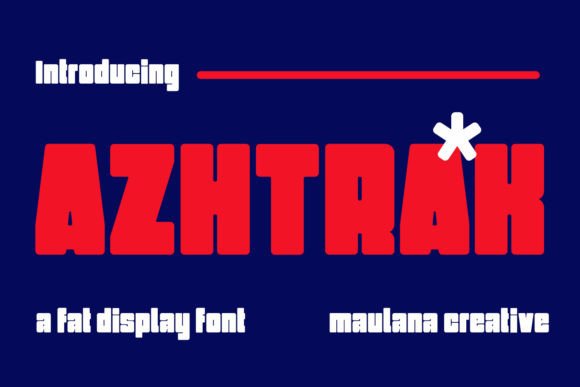
Introducing Azhtrak Font: The Ultimate Modern Display Font
In the world of typography, fonts play a crucial role in conveying messages, expressing emotions, and creating visual identities. With the rise of digital media, the demand for unique and versatile fonts has increased exponentially. This is where Azhtrak Font comes into play – a modern, fat, condensed sans display font that is taking the design world by storm.
What Makes Azhtrak Font Stand Out?
Azhtrak Font is a carefully crafted typeface that boasts a range of distinctive features, making it an excellent choice for designers, artists, and writers. Some of its key characteristics include:
- Heavy Stroke: Azhtrak Font features a bold, heavy stroke that gives it a strong and confident appearance, perfect for making a statement.
- Fun Character: The font’s playful and fun character makes it ideal for creative projects that require a touch of personality.
- Ligatures and Alternates: Azhtrak Font comes with a range of ligatures and alternates, allowing designers to add an extra layer of creativity to their work.
Multilingual Support: Breaking Language Barriers
In today’s globalized world, communication knows no language barriers. Azhtrak Font understands this and offers multilingual support for over 100 languages, making it an excellent choice for designers working on international projects.
Whether you’re creating content for a global audience or working on a project that requires support for multiple languages, Azhtrak Font has got you covered. Its extensive language support ensures that your message reaches a broader audience, without compromising on style or legibility.
Endless Possibilities: Use Cases for Azhtrak Font
Azhtrak Font’s versatility makes it suitable for a wide range of applications, including:
- Logo Design: Create stunning logos that make a lasting impression with Azhtrak Font’s bold and confident appearance.
- Social Media: Elevate your social media presence with eye-catching graphics and typography that showcase your brand’s personality.
- Movie Titles: Add a touch of glamour to your movie titles with Azhtrak Font’s cinematic feel.
- Book Titles: Create captivating book titles that grab readers’ attention and reflect the tone of your story.
- Short and Long Text: Use Azhtrak Font for both short and long texts, including letters, articles, and more.
- Secondary Text Font: Pair Azhtrak Font with script or serif fonts to create a harmonious and visually appealing typography combination.
Unlock Your Creativity with Azhtrak Font
Azhtrak Font is more than just a typeface – it’s a creative tool that can help you unlock your full artistic potential. With its unique features, multilingual support, and versatility, this font is perfect for:
- Graphic Design: Create stunning graphics, posters, and flyers that showcase your brand’s personality.
- Branding: Develop a strong visual identity for your brand with Azhtrak Font’s bold and confident appearance.
- Advertising: Craft attention-grabbing ads that drive results with Azhtrak Font’s cinematic feel.
Tips and Tricks for Getting the Most Out of Azhtrak Font
To maximize the potential of Azhtrak Font, here are some tips and tricks to keep in mind:
- Experiment with Ligatures: Take advantage of Azhtrak Font’s ligatures and alternates to add a touch of personality to your text.
- Play with Font Sizes: Use Azhtrak Font in different sizes to create visual hierarchy and emphasize key messages.
- Pair with Other Fonts: Combine Azhtrak Font with script or serif fonts to create a unique and visually appealing typography combination.
In conclusion, Azhtrak Font is a modern, fat, condensed sans display font that offers a unique combination of style, versatility, and creativity. With its heavy stroke, fun character, ligatures, and alternates, this font is perfect for designers, artists, and writers looking to make a statement. Whether you’re working on a logo design, social media graphics, movie titles, or book titles, Azhtrak Font is an excellent choice.